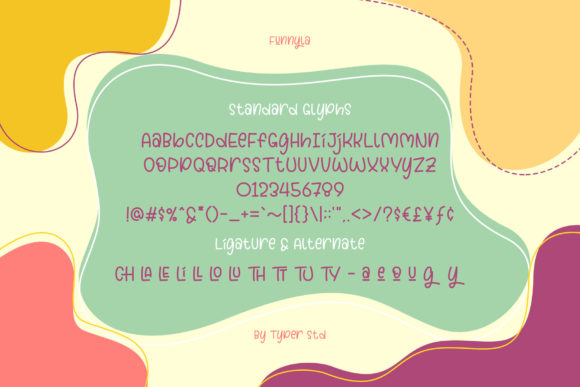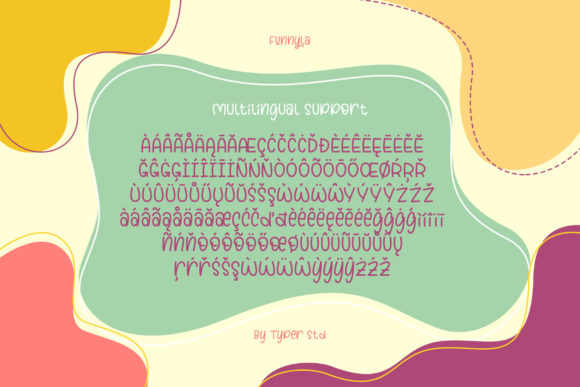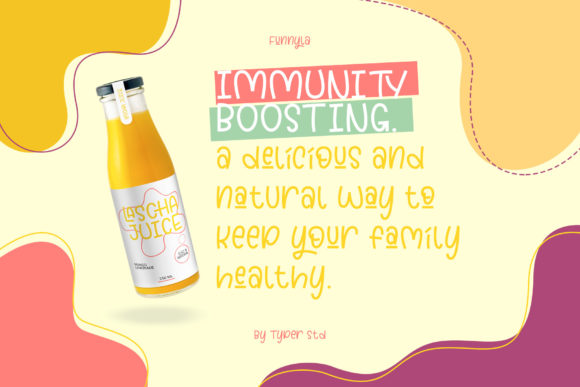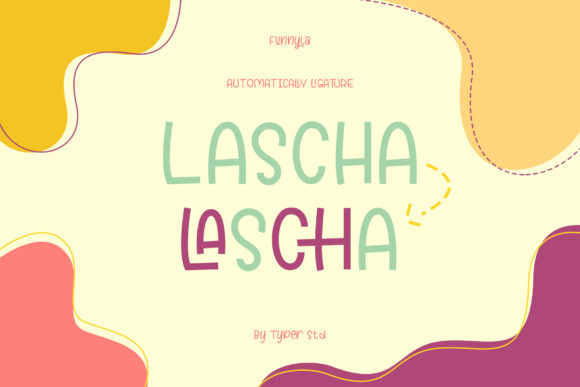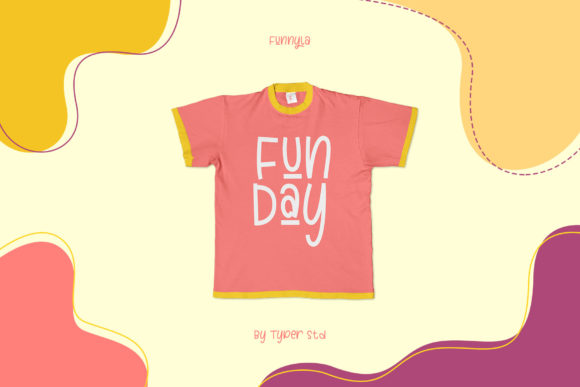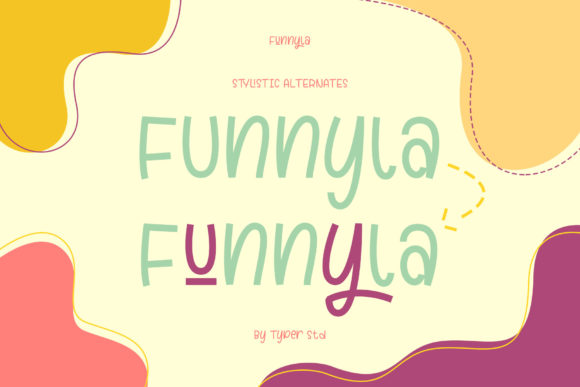
Introduction to Funnyla Font
Have you ever been working on a creative project, pouring your heart and soul into it, only to realize that the design is missing that one special something that would make it truly stand out? For designers, this can be a frustrating and all-too-common experience. But what if you had a secret weapon in your design arsenal that could elevate your projects to the next level?
Enter the Funnyla Font, a stylish and unique display font that’s sure to add a touch of creativity to any design. With its high-quality glyphs and swashes, this font is perfect for designers looking to add a creative touch to their projects. Whether you’re working on a poster, a thank you card, or a logo, the Funnyla Font is a valuable design resource that’s sure to make your designs shine.
Key Features of Funnyla Font
- High-quality design resource ideal for creative projects, offering a unique and playful aesthetic.
- Includes multiple font styles and weights, providing versatility for a wide range of creative applications.
- Perfect for designers looking for a fun and quirky design resource to elevate their creative project.
Honest Review: Funnyla Font
As a designer, I’m always on the lookout for high-quality design resources to elevate my creative projects. The Funnyla Font is a unique and quirky addition to my design arsenal.
What works well is its playful, hand-drawn style that adds a touch of whimsy to any project. The font is highly versatile, making it suitable for a wide range of applications, from digital to print media.
- Unique, hand-drawn style
- Highly versatile font suitable for various applications
- Transparent background for easy design combination
While the Funnyla Font excels in its creativity and playfulness, it may not be suitable for projects requiring a more formal or professional tone.
Overall, I’m impressed with the Funnyla Font’s ability to add a fun and quirky touch to my designs. It’s a great addition to any designer’s toolkit.
Tips for Getting the Most Out of Funnyla Font
For optimal results, use Funnyla Font in conjunction with other design elements to create a visually appealing design. You can also experiment with different font sizes and colors to add depth and interest to your design.